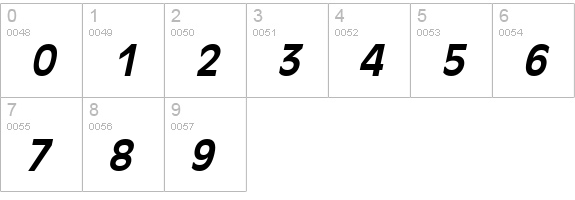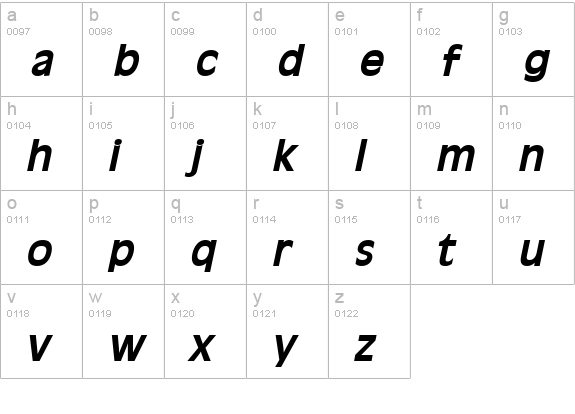
Antiqua 101 BoldItalic Font Details
Antiqua 101 BoldItalic is a stunning and elegant font that exudes sophistication and charm. With its bold and italicized design, this font is perfect for creating eye-catching headlines, titles, and branding materials. The graceful curves and intricate details of Antiqua 101 BoldItalic make it a versatile choice for both print and digital designs. What sets Antiqua 101 BoldItalic apart is that it is available for free download at FontsMarket.com. This means that you can easily access this high-quality font without any cost, making it a valuable addition to your design toolkit. Whether you're working on a professional project or a personal creative endeavor, Antiqua 101 BoldItalic is sure to elevate your designs with its timeless appeal and modern flair. Download this exquisite font today and unleash your creativity with Antiqua 101 BoldItalic.